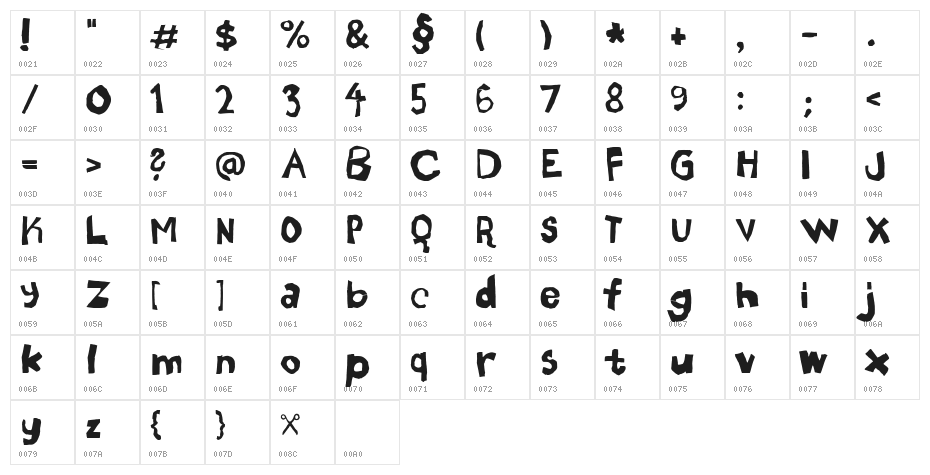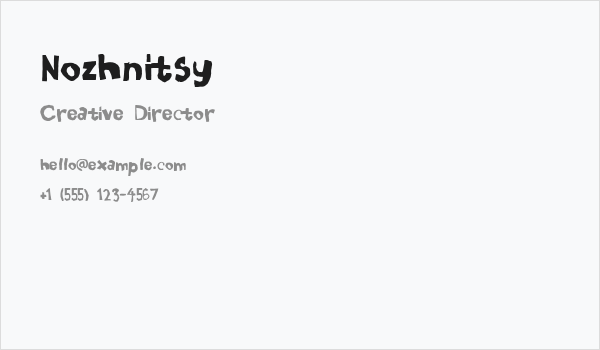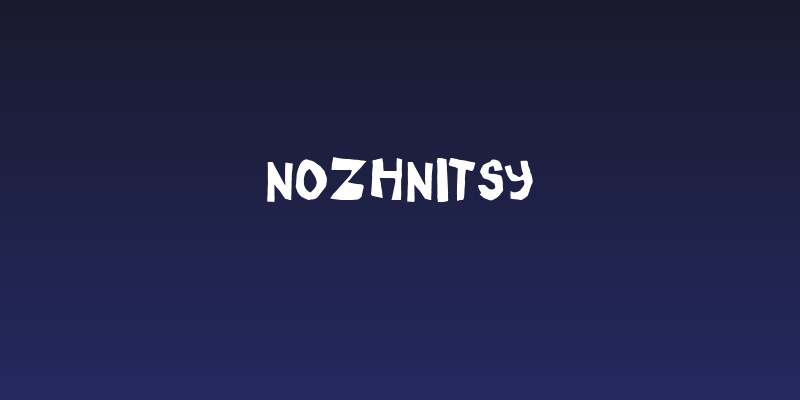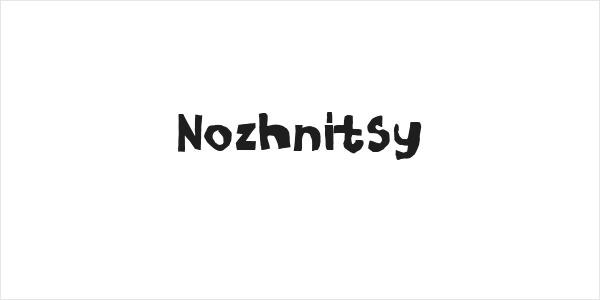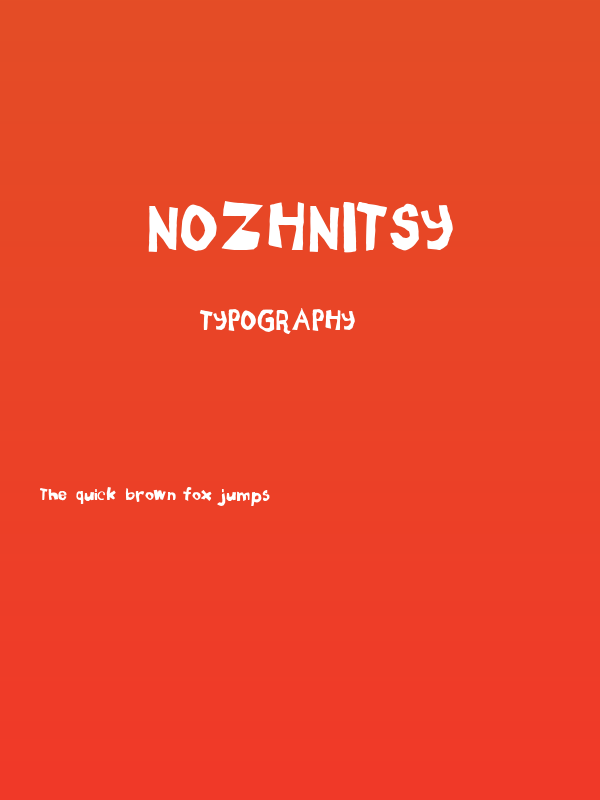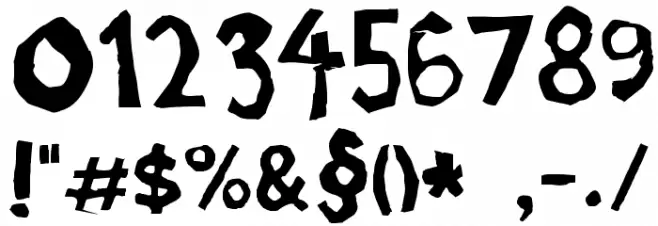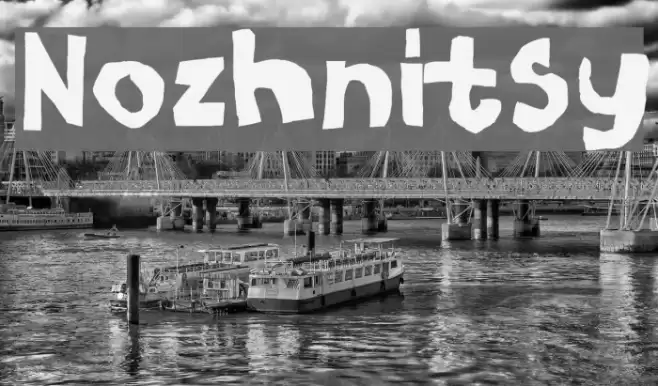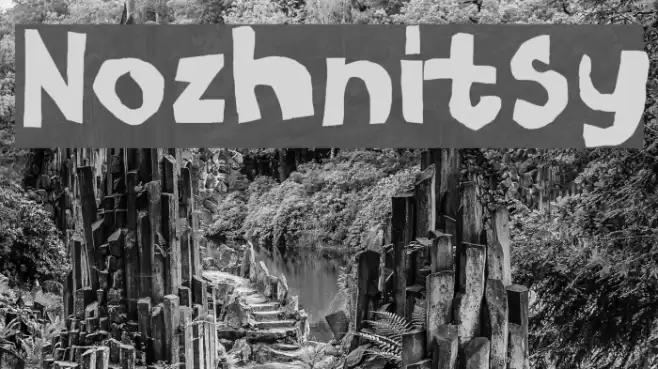
Nozhnitsy Font
This font exhibits a playful and irregular style, characterized by its hand-cut appearance and uneven edges. The letters have a bold and chunky form, giving them a strong presence on the page. Each character seems to have been crafted with scissors, resulting in a unique and whimsical look. The uppercase and lowercase letters maintain a consistent weight, while the numbers and special characters follow the same quirky design. This font's distinctive style makes it stand out, offering a creative and artistic touch to any project.
| Proposed Projects | Ideal for children's book covers, playful posters, creative branding, and artistic invitations. |